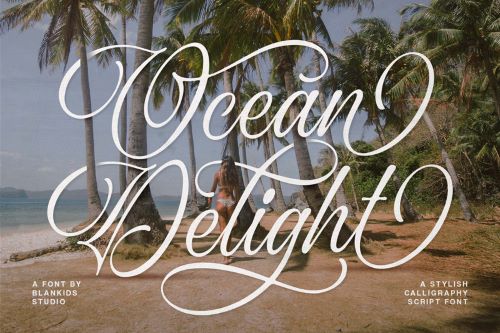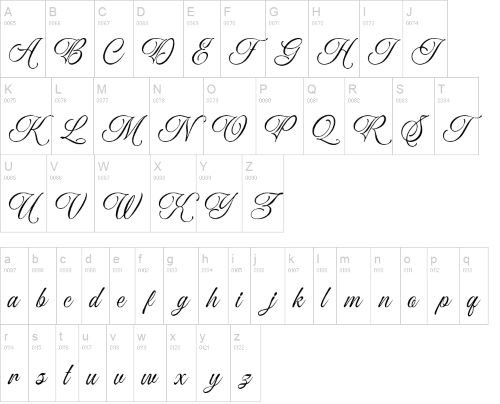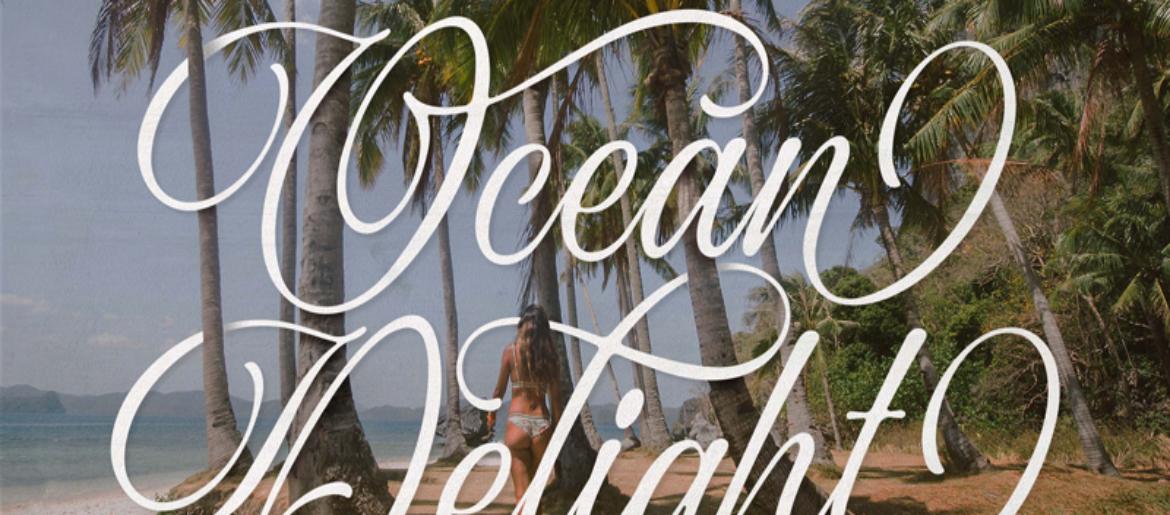
Ocean Delight Font
Ocean Delight Font is a playful, flowing display typeface inspired by the fresh, carefree feeling of the sea. With its soft curves and lively letterforms, it’s perfect for beach-themed branding, summer posters, packaging, and cheerful designs. Ocean Delight adds a breezy, fun, and uplifting vibe to any creative project.
➤ Font Name: Ocean Delight
➤ Designer: Blankids
➤ Style: Script > Calligraphy